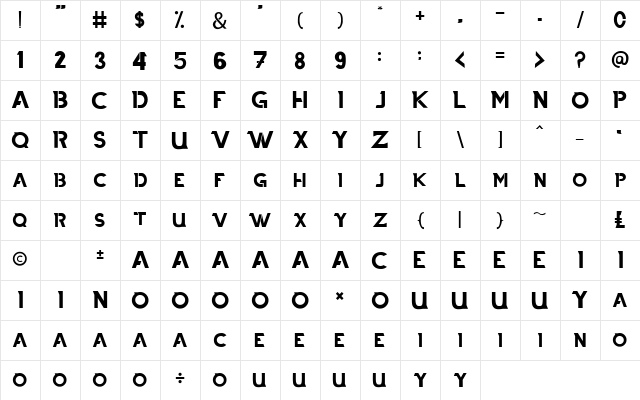
THIAGA Regular
| Foundry | Edric Studio |
| Designer | Aghnia |
Design Context for THIAGA Typeface
THIAGA offers clean, dependable letterforms without strong stylistic allegiance, making it a practical choice for designers who need flexibility.